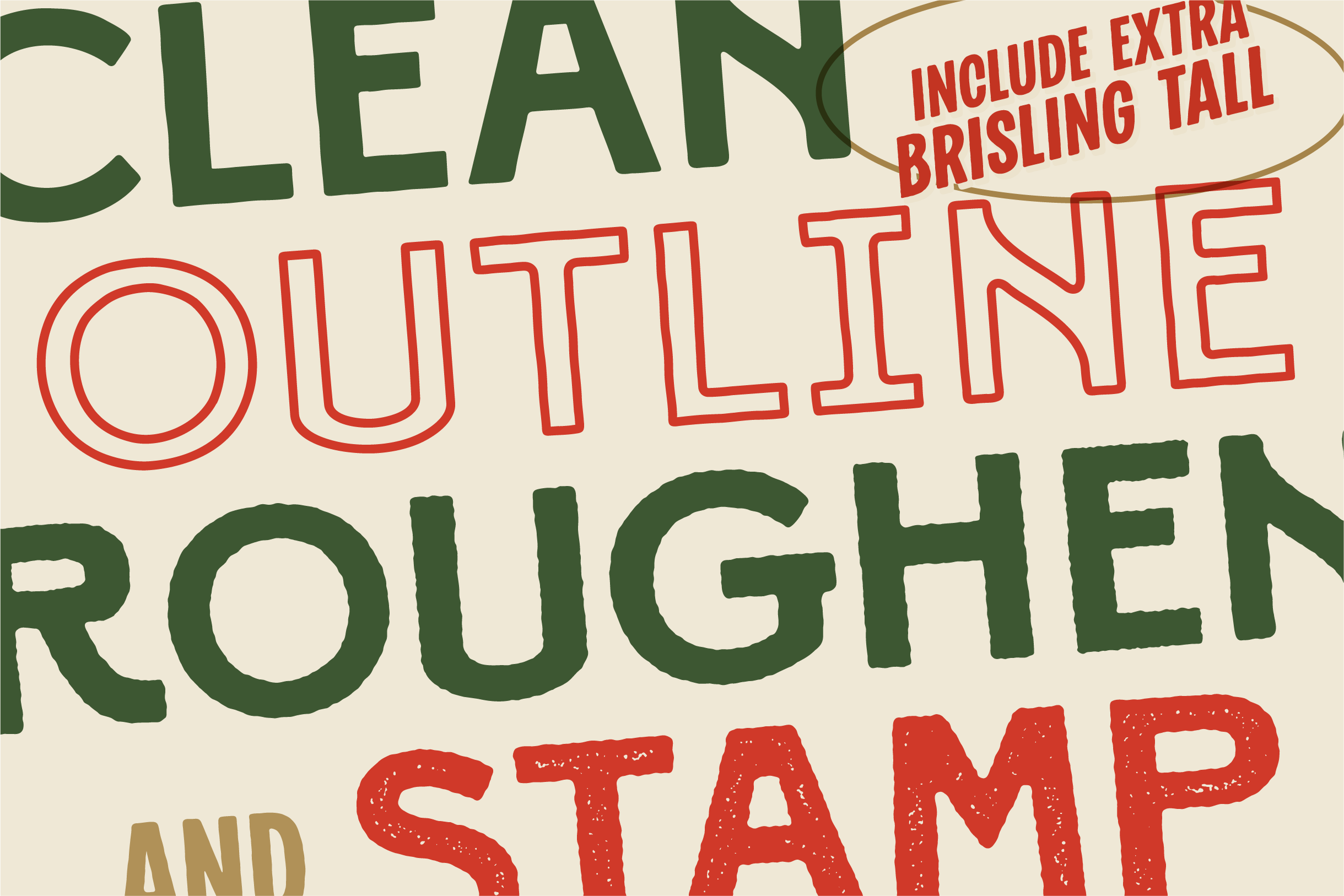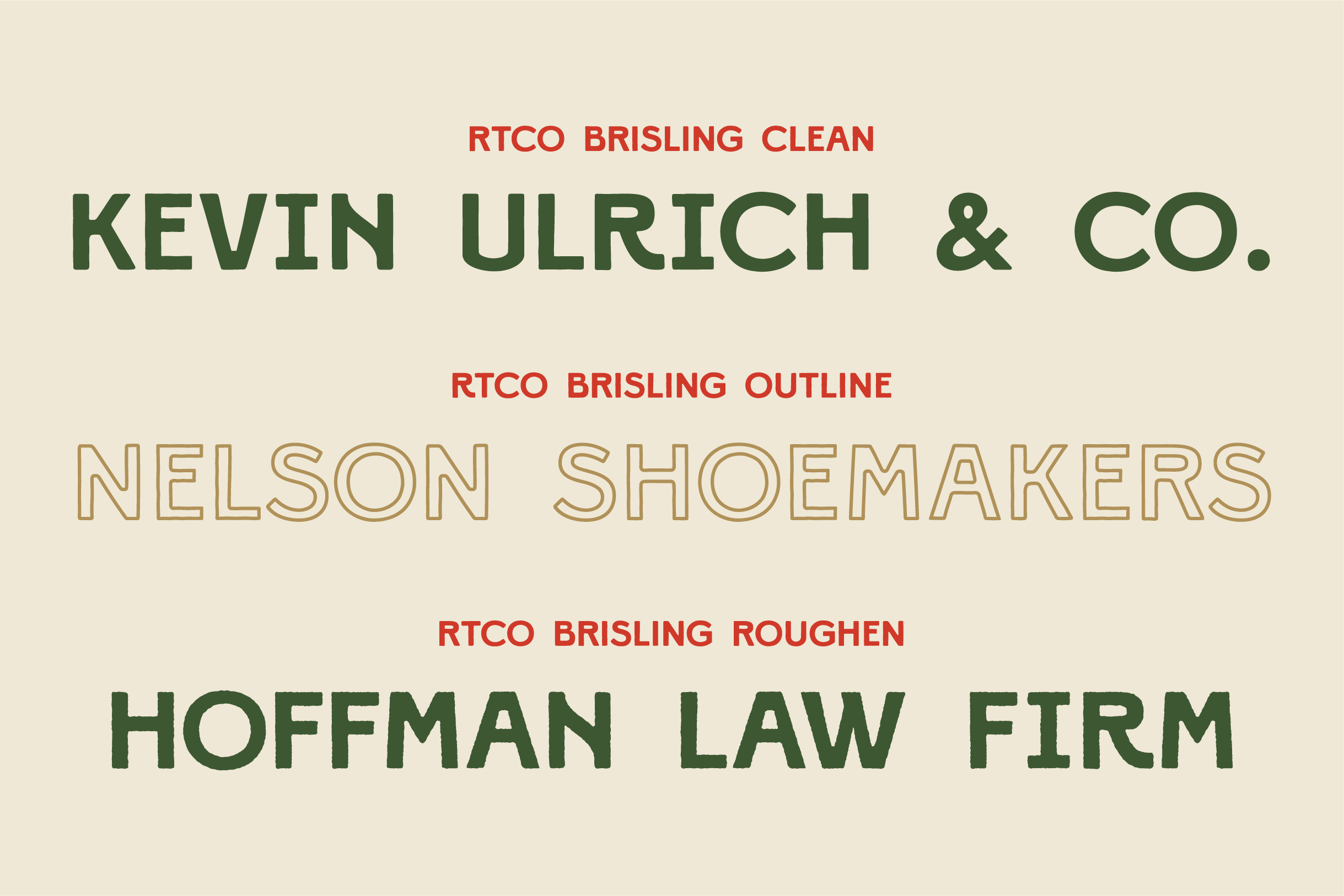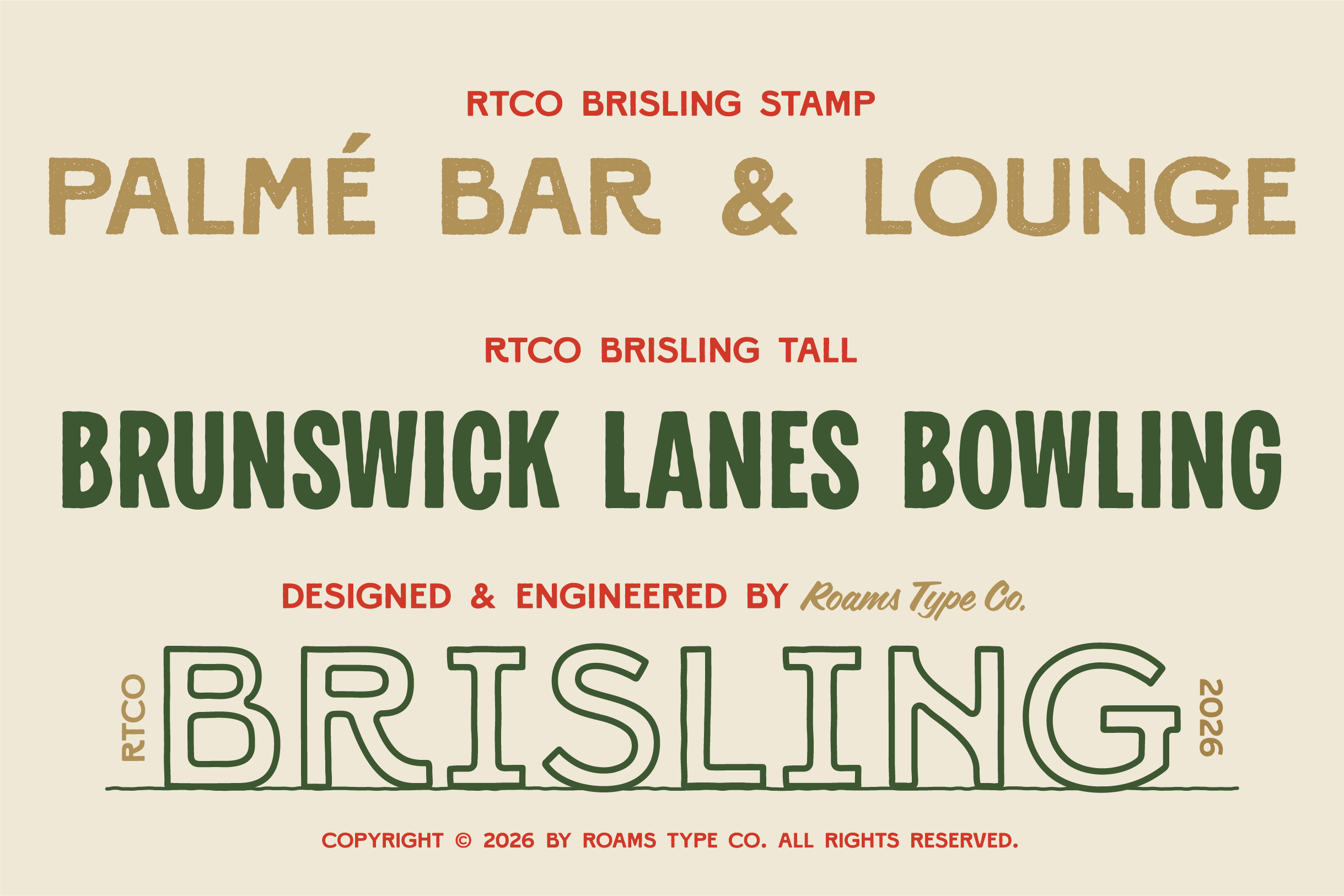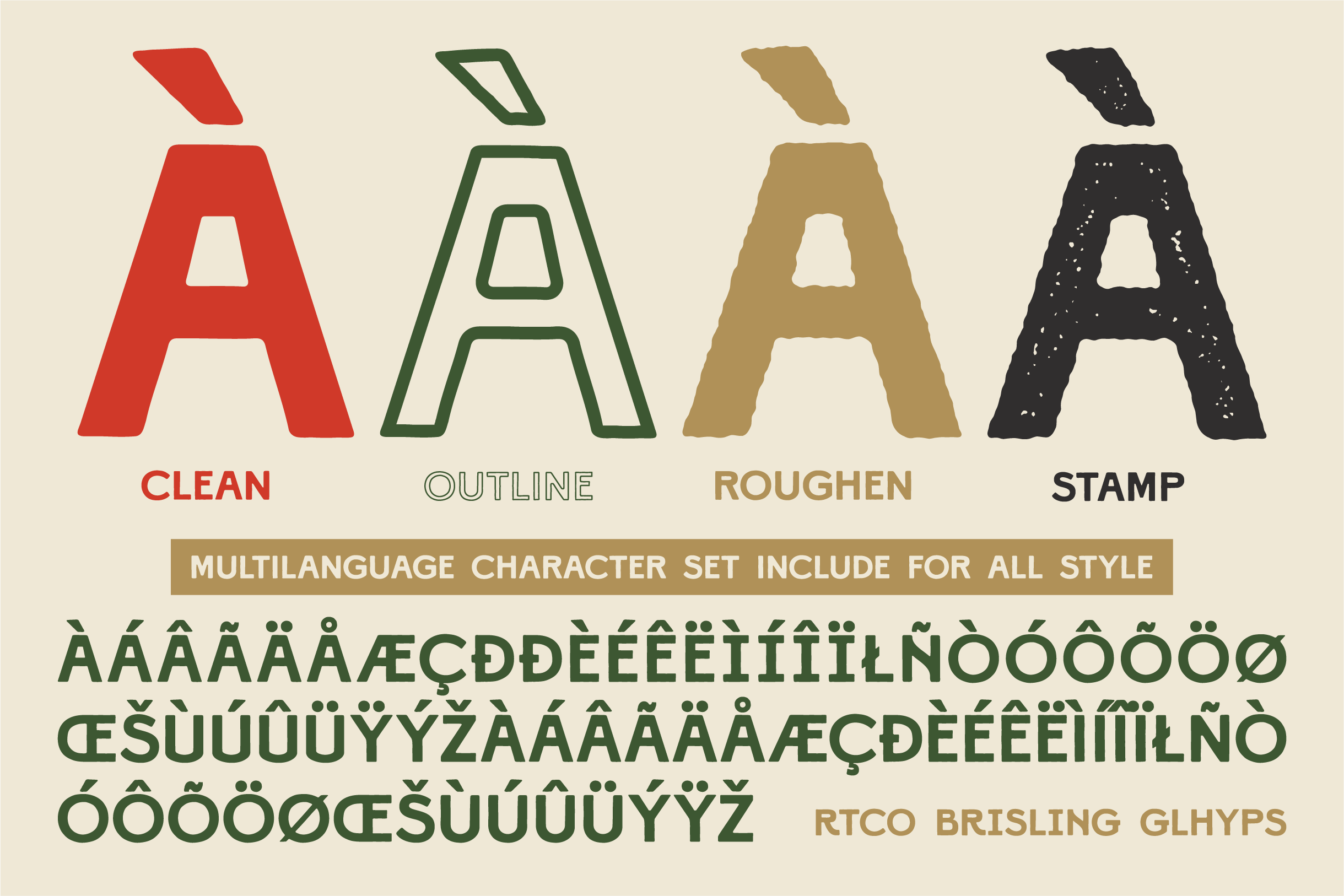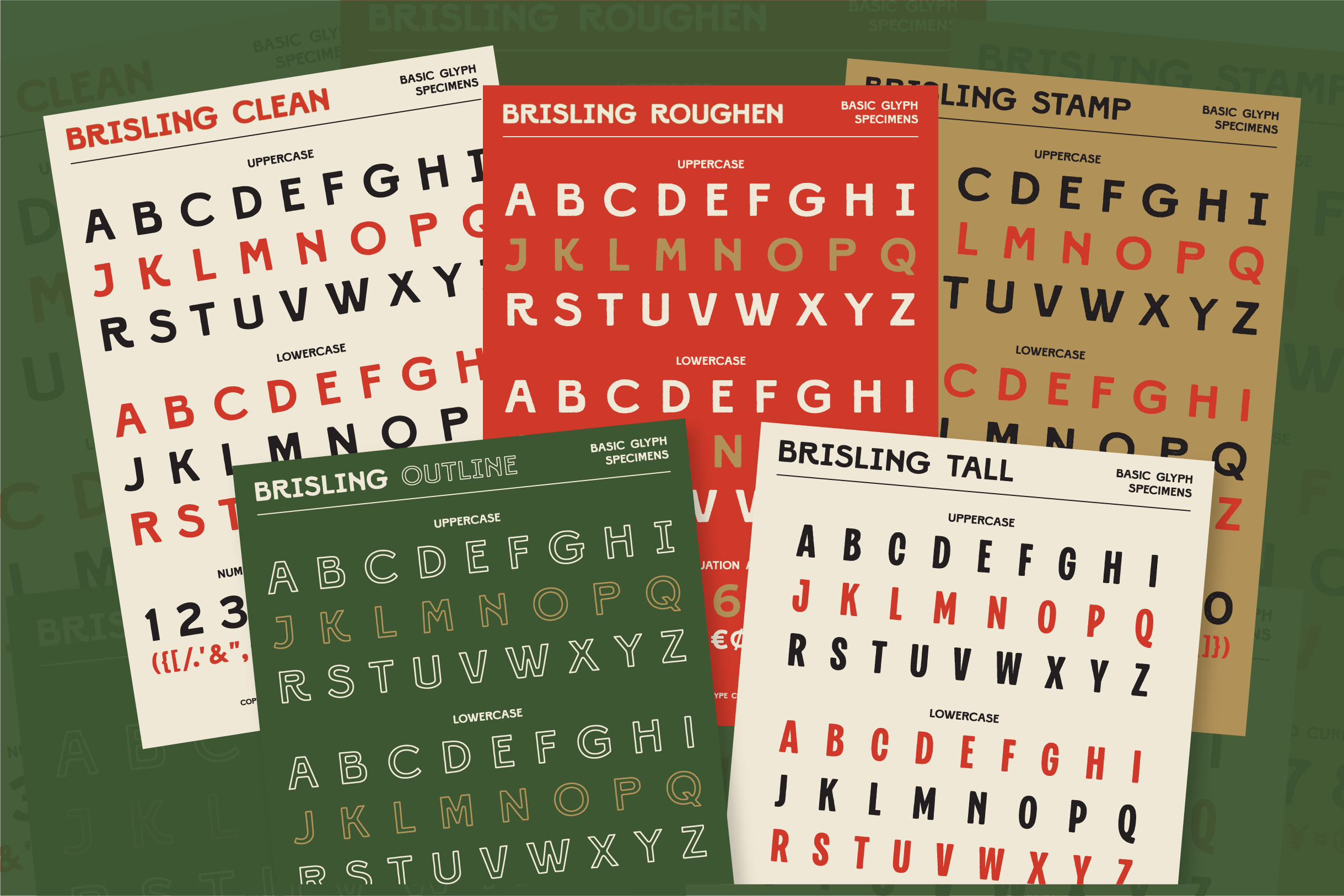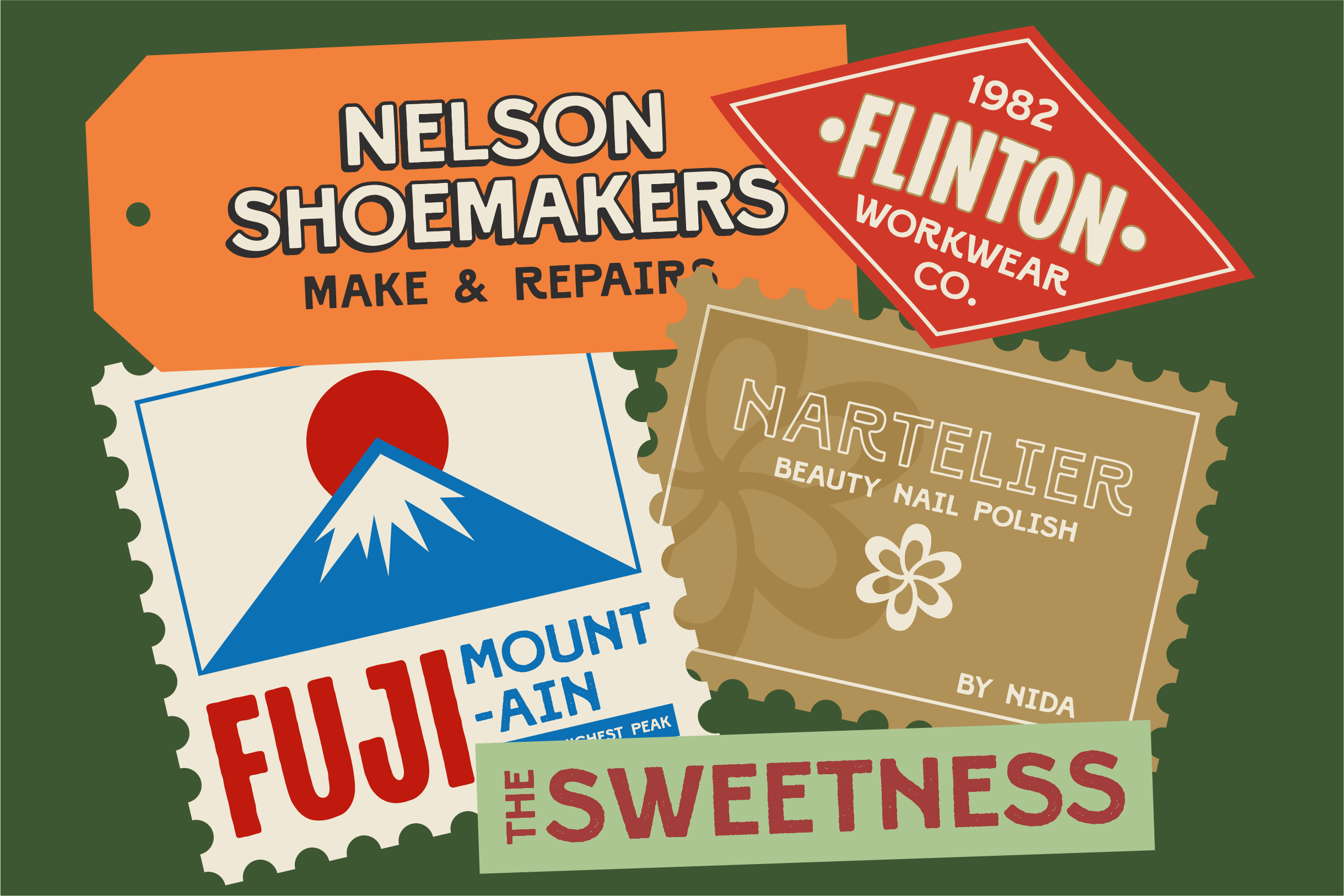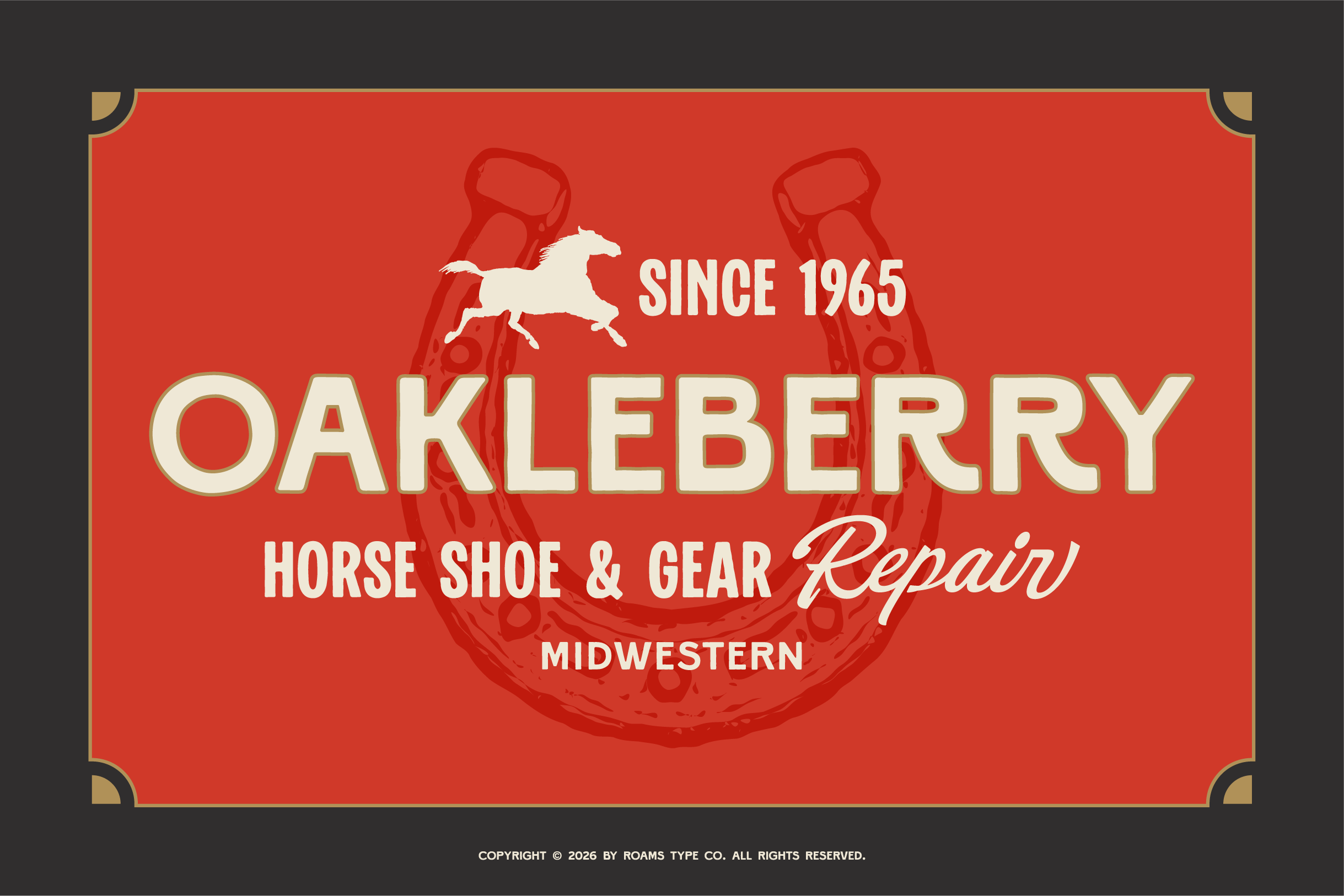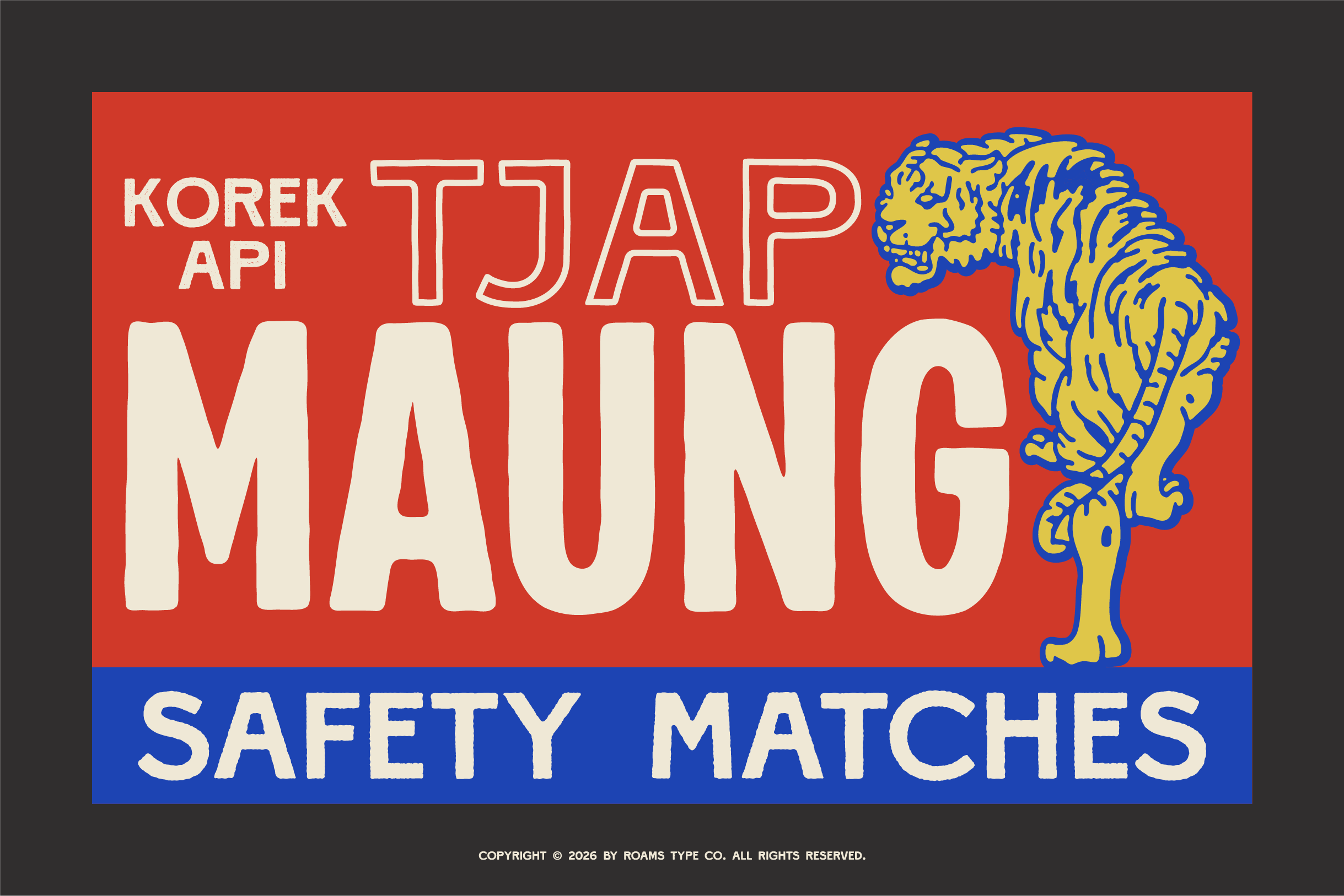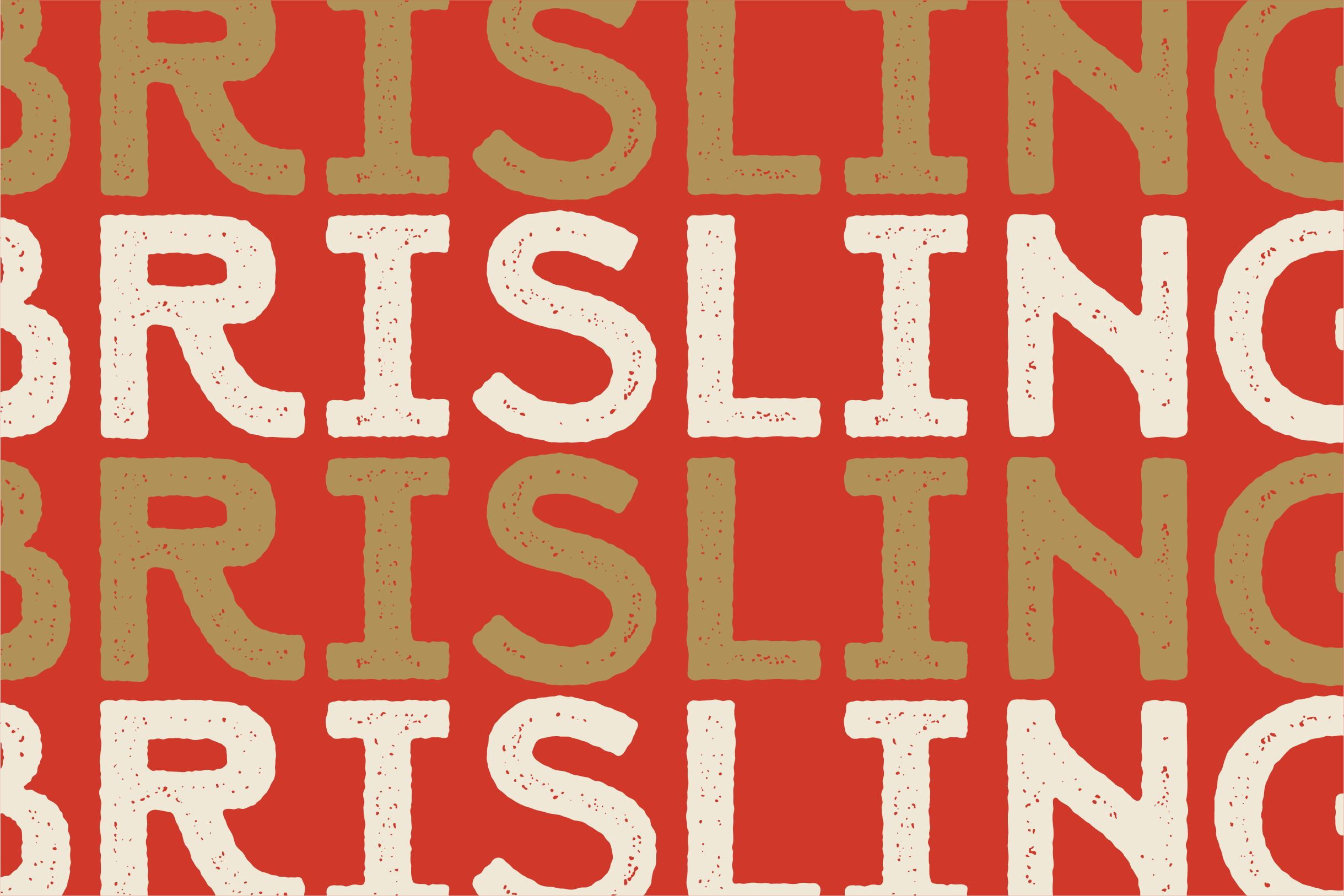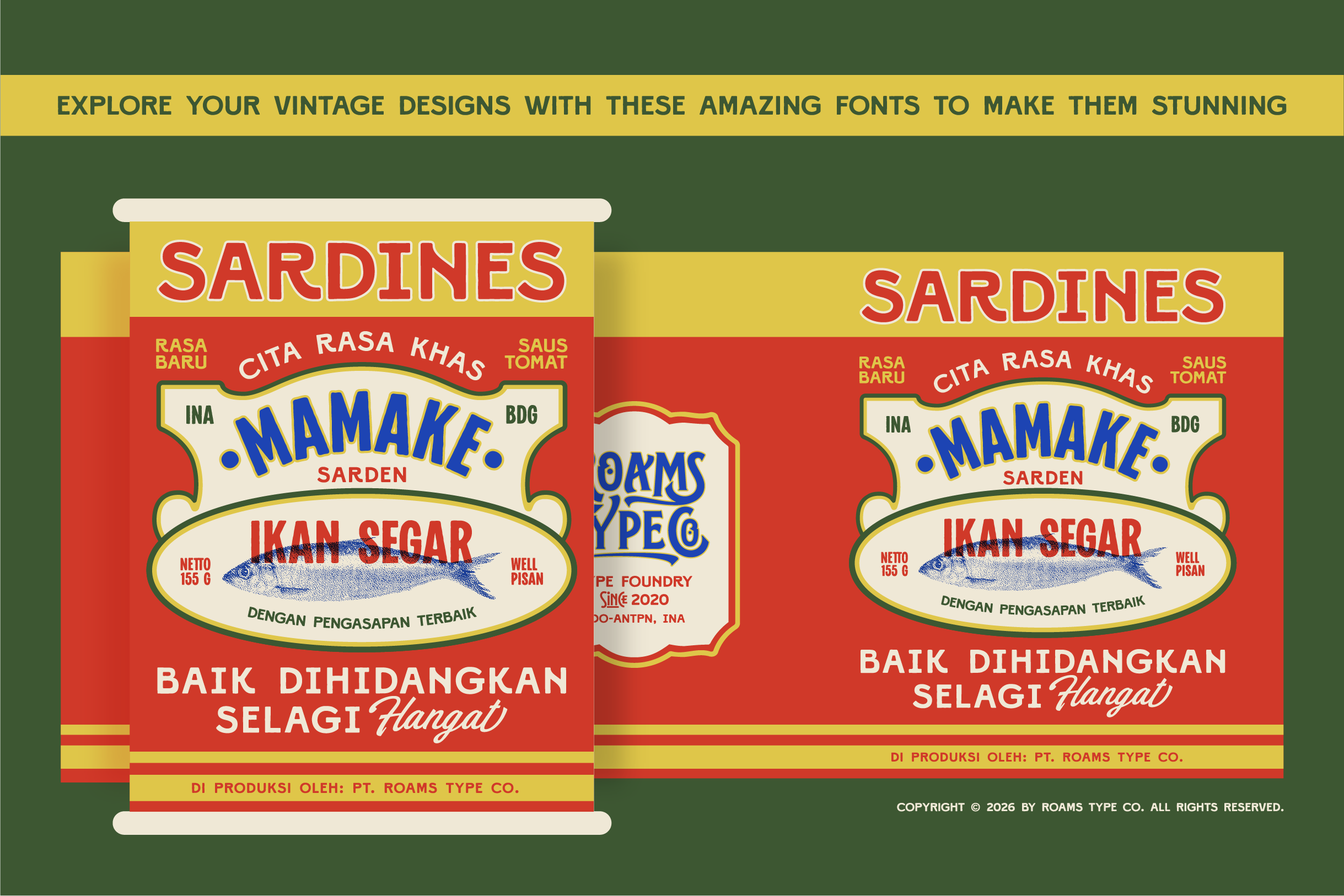
BRISLING - HAND DRAWN TYPEFACE
BRISLING inspired by vintage sans serif display font crafted with a hand-drawn soul. Designed to bring a nostalgic yet clean aesthetic, this typeface blends classic retro charm with modern usability—perfect for standout typography projects. With its strong uppercase structure and slightly rugged character, Brisling delivers a striking presence whether used in branding, packaging, posters, or merchandise design.
• RTCO BRISLING Clean
• RTCO BRISLING Outline
• RTCO BRISLING Roughen
• RTCO BRISLING Stamp
• RTCO BRISLING Tall
| Uppercase | Numerals & Punctuation | Multilanguage Support
BRISLING is a hand-drawn typeface inspired by vintage sans serif display fonts, featuring strong uppercase letters and a slightly rugged character. The package includes five variations: Clean, Outline, Roughen, Stamp, and Tall, along with support for numerals, punctuation, and multiple languages.